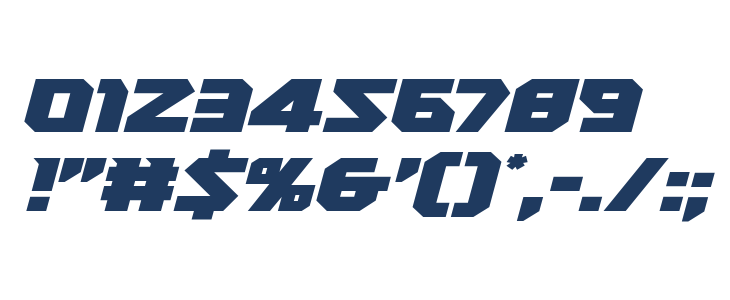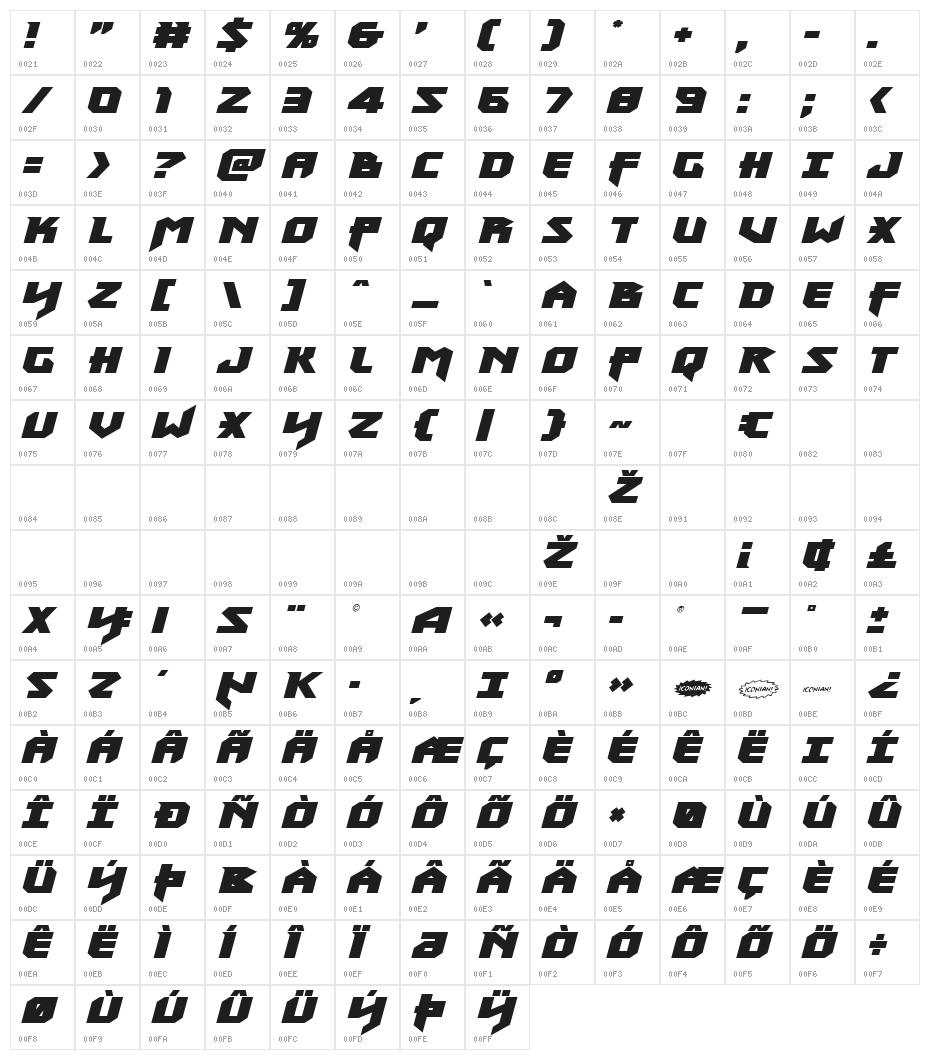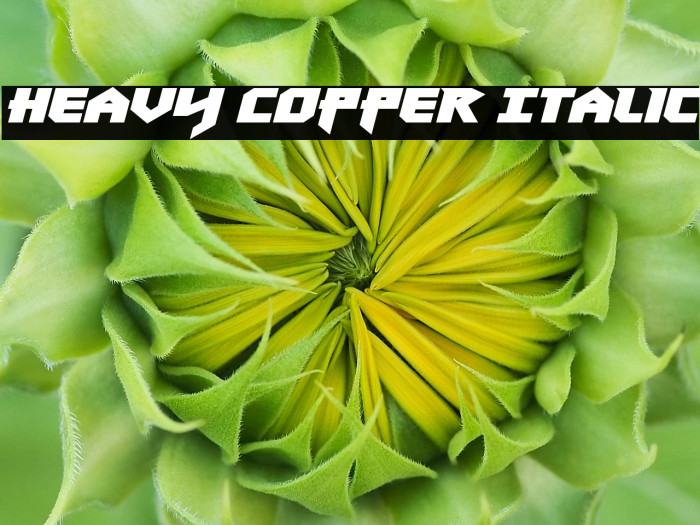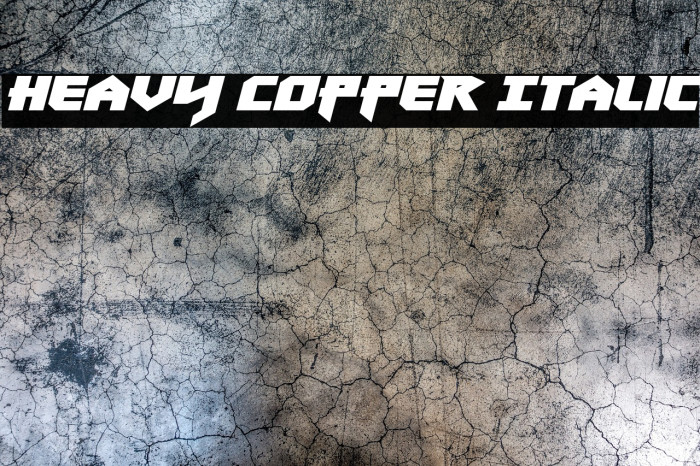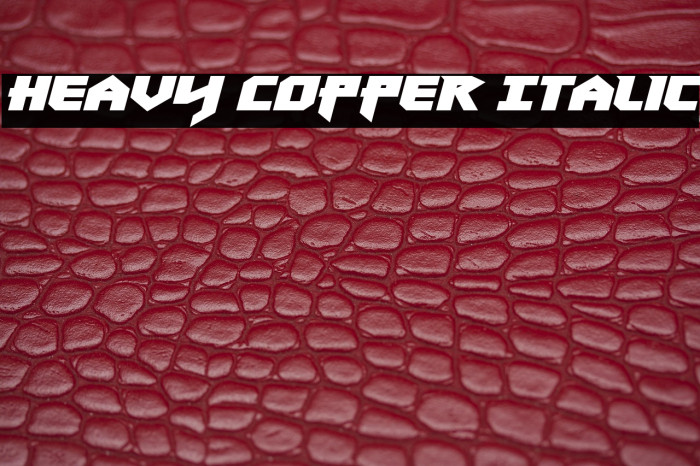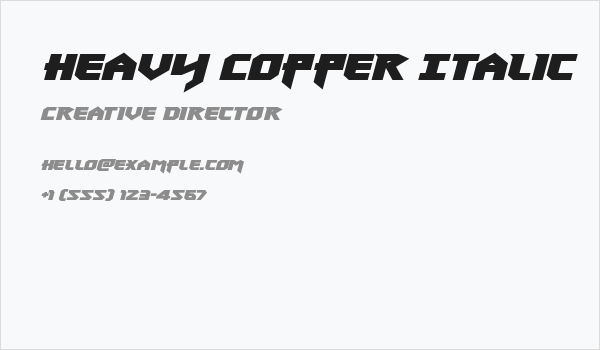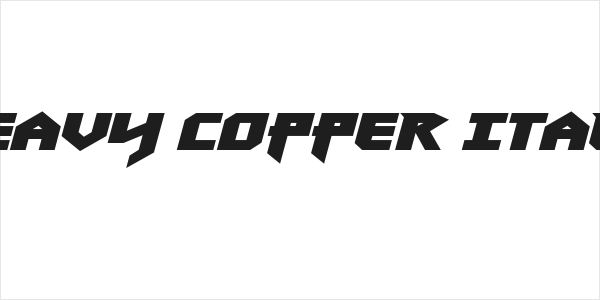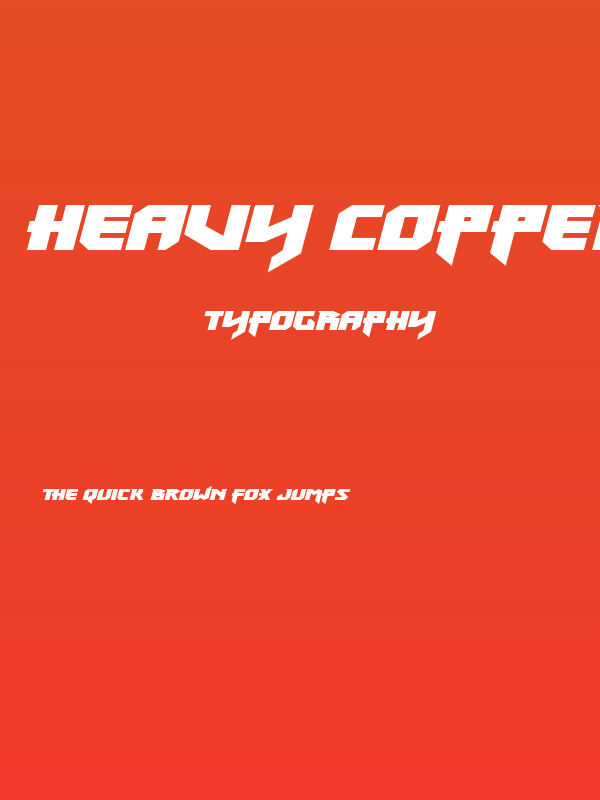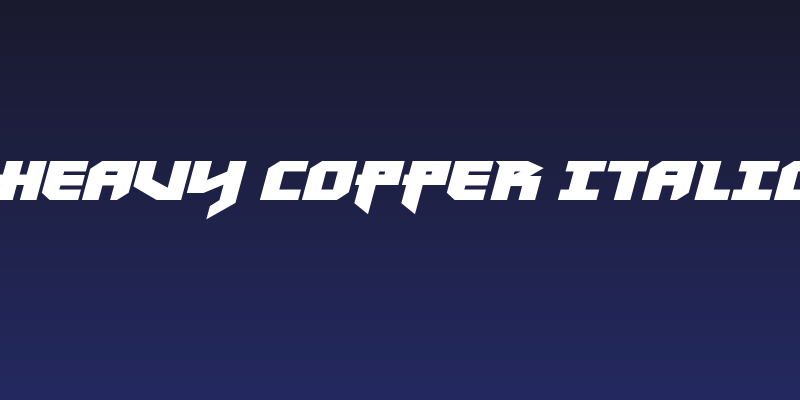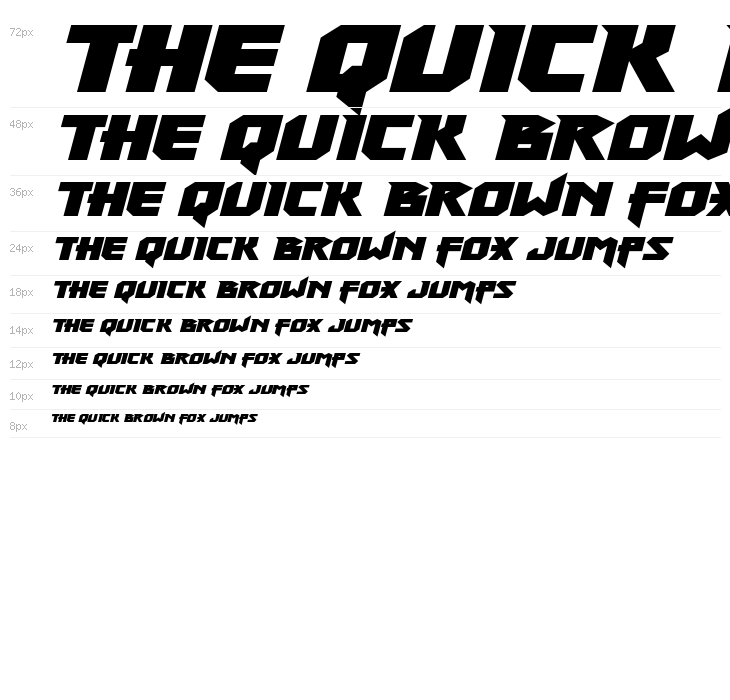
Heavy Copper Italic Font
Heavy Copper Italic Description
This font features a bold and dynamic design with sharp, angular edges and a strong italic slant. The characters are heavily stylized, giving them a futuristic and aggressive appearance. The uppercase and lowercase letters maintain a consistent style, with exaggerated serifs and a sense of motion. Numbers and special characters are equally bold, ensuring uniformity across all glyphs. The font's unique style makes it stand out, ideal for projects that require a striking and modern look.
| Proposed Projects | Perfect for video game titles, sports branding, sci-fi posters, and dynamic logo designs. |